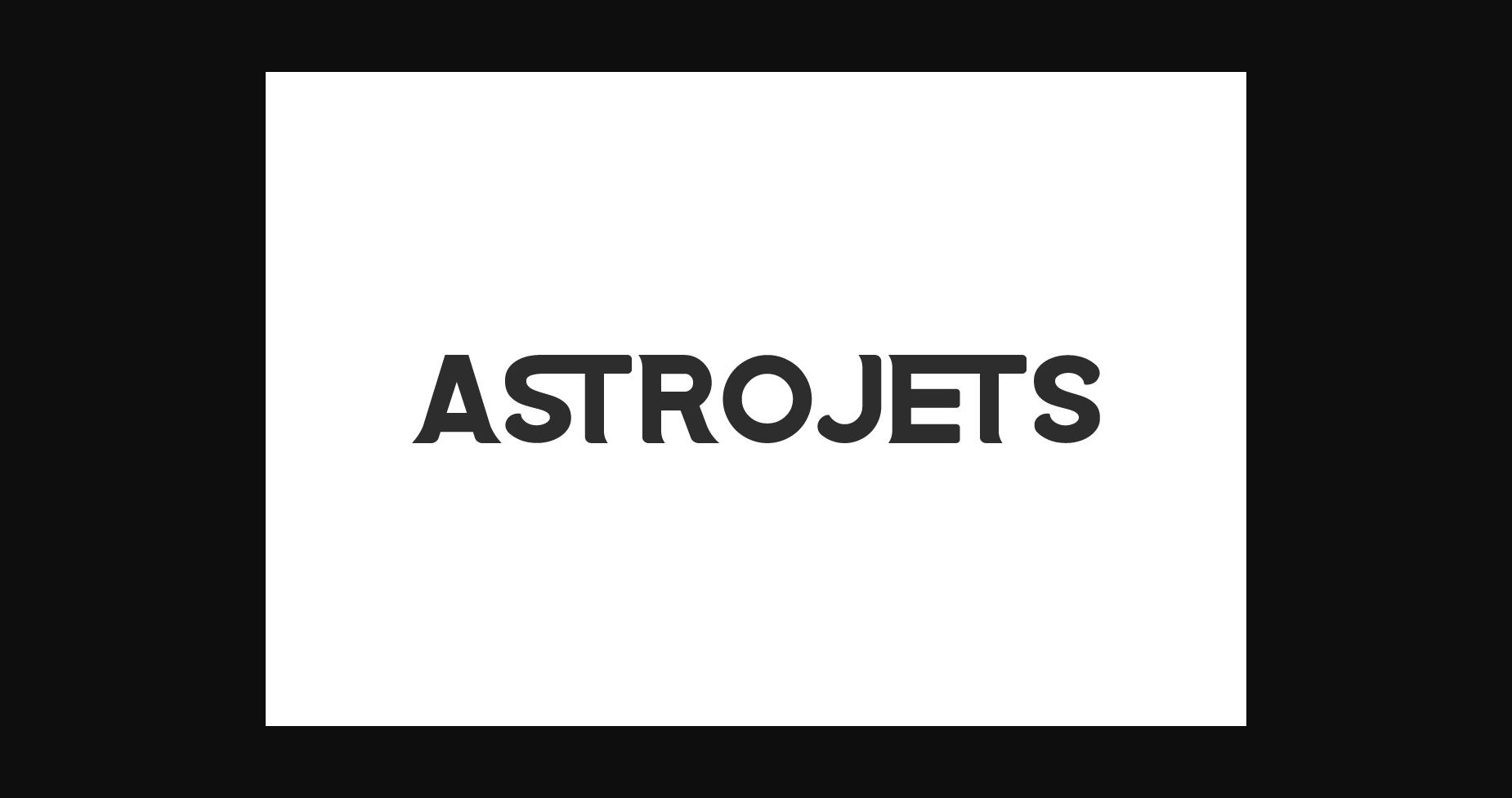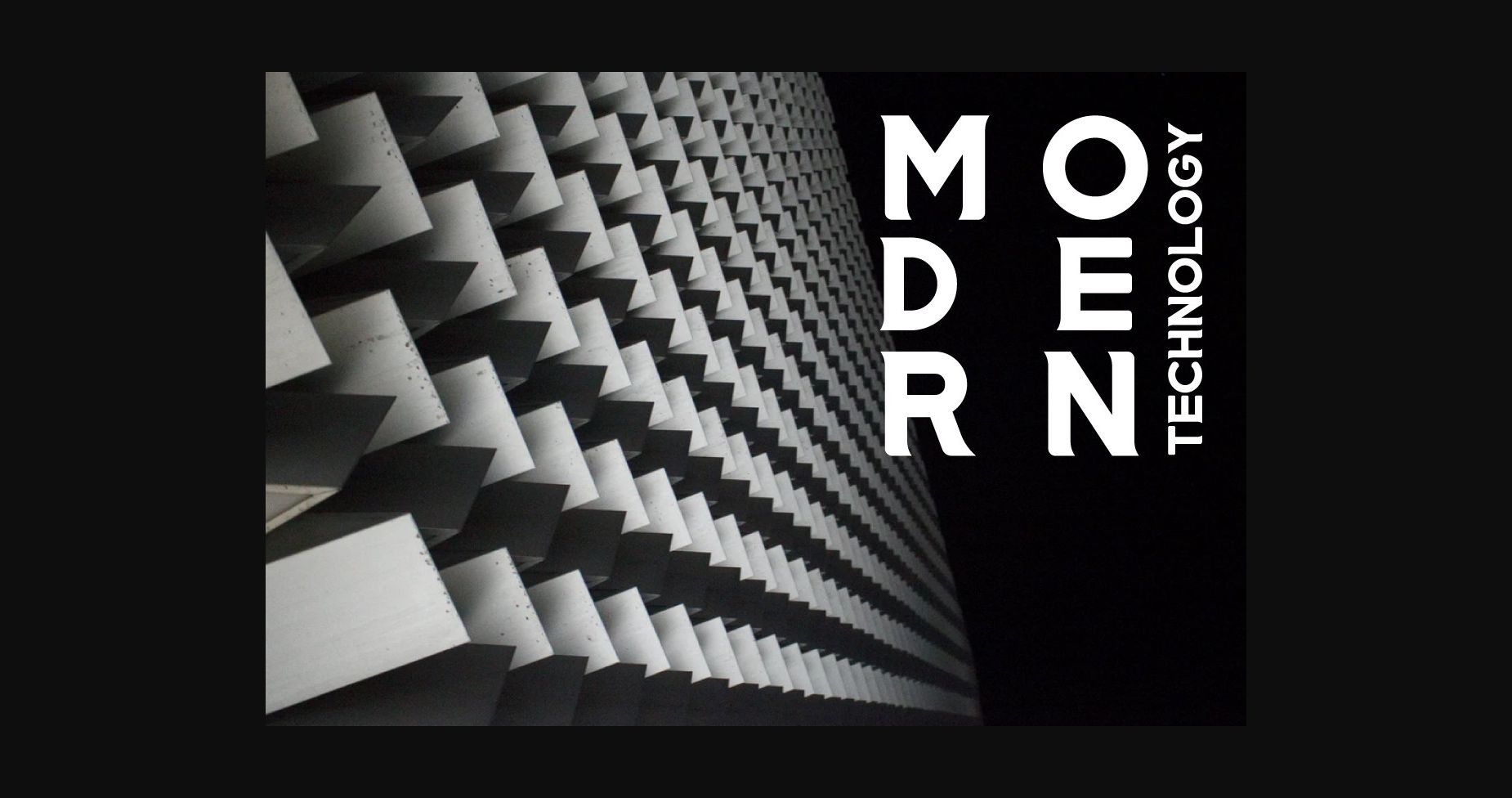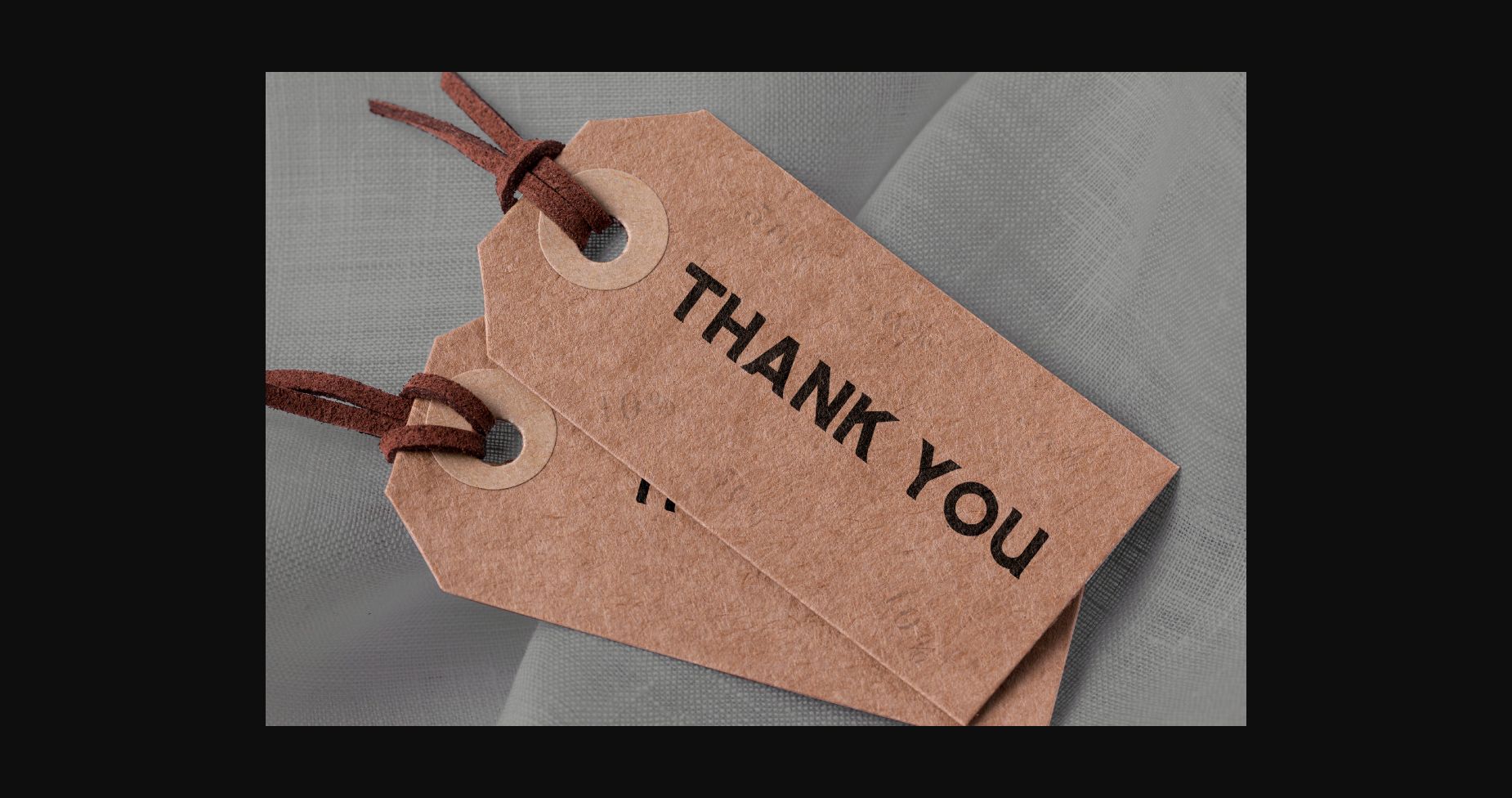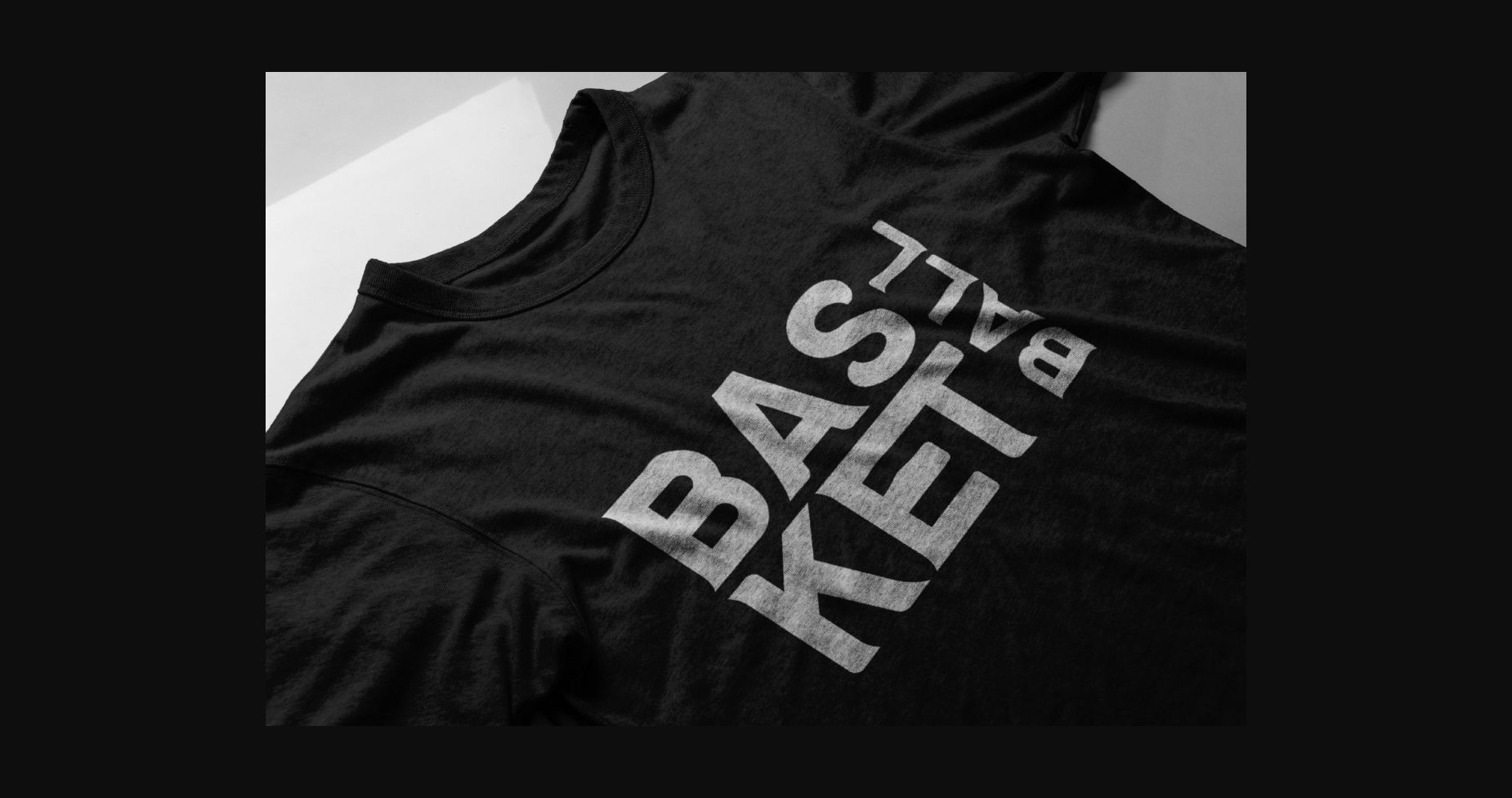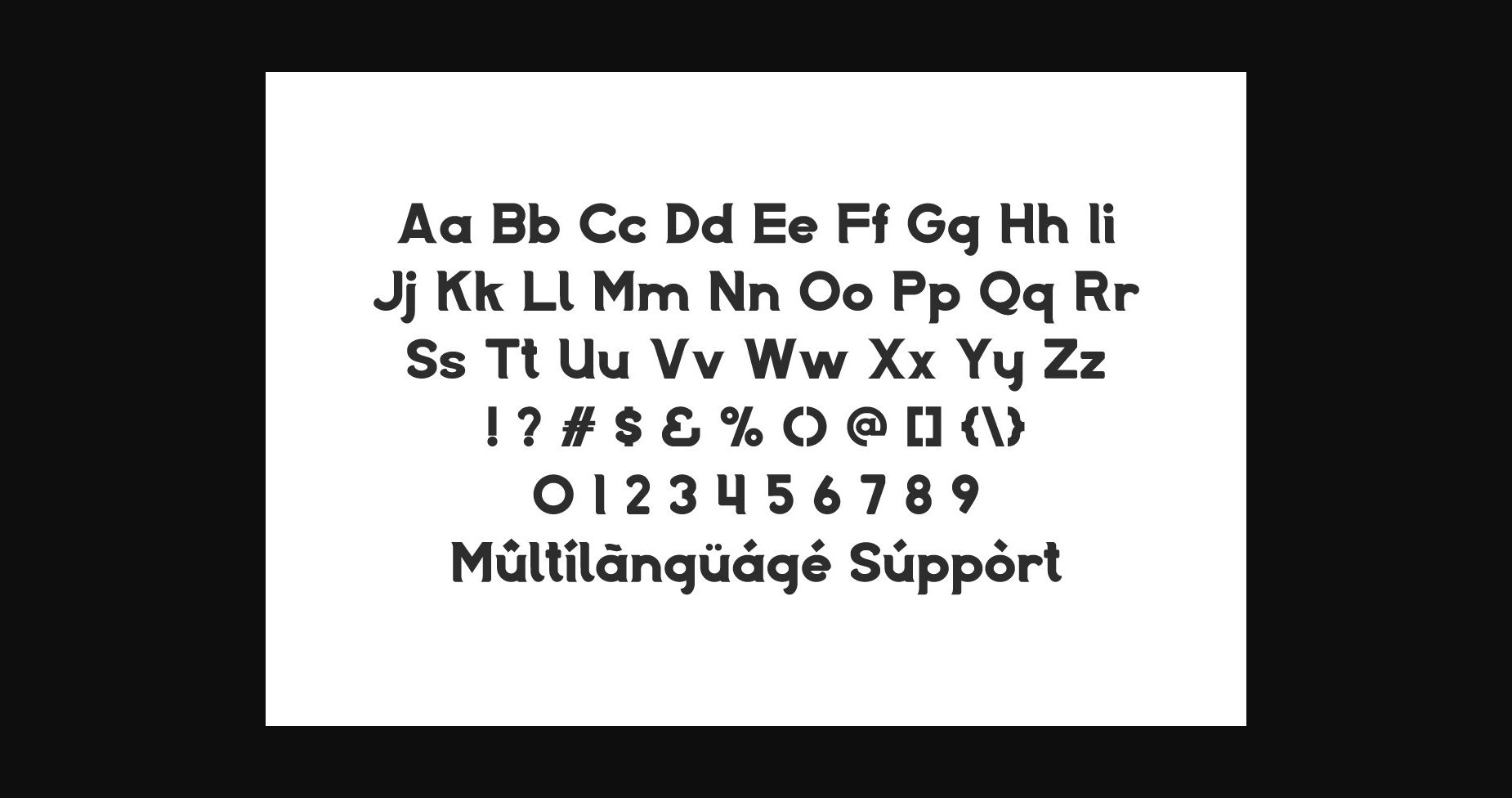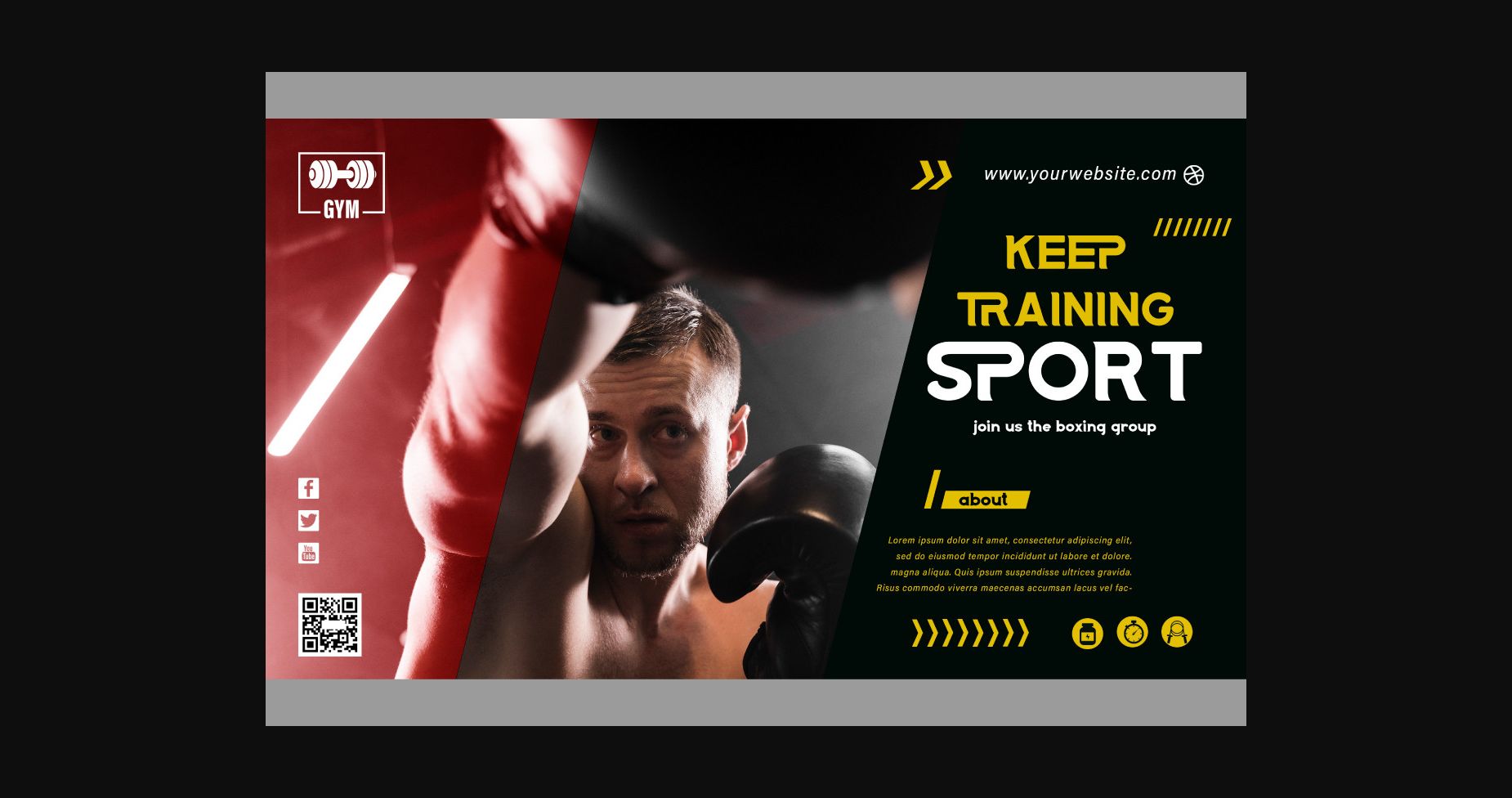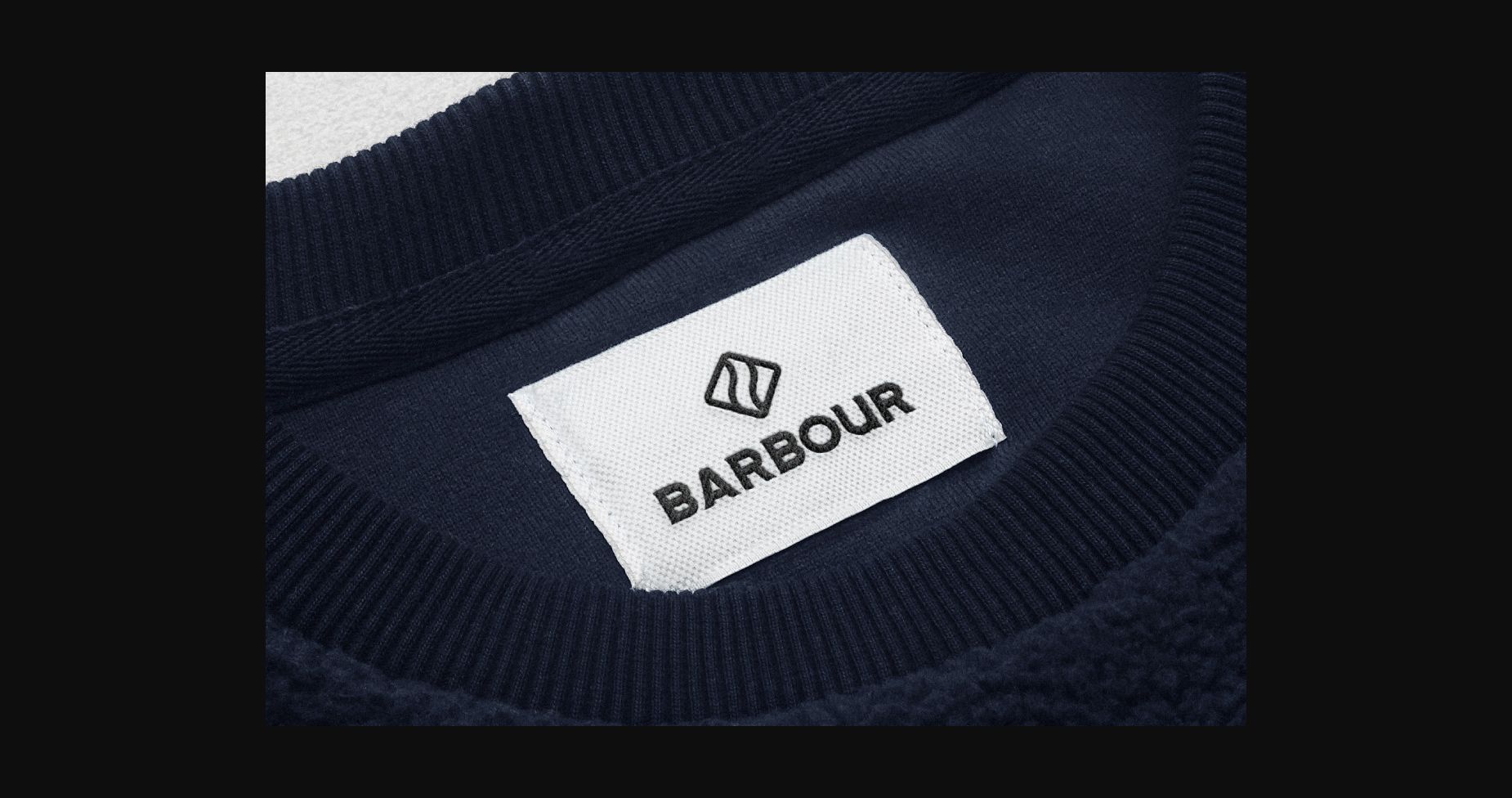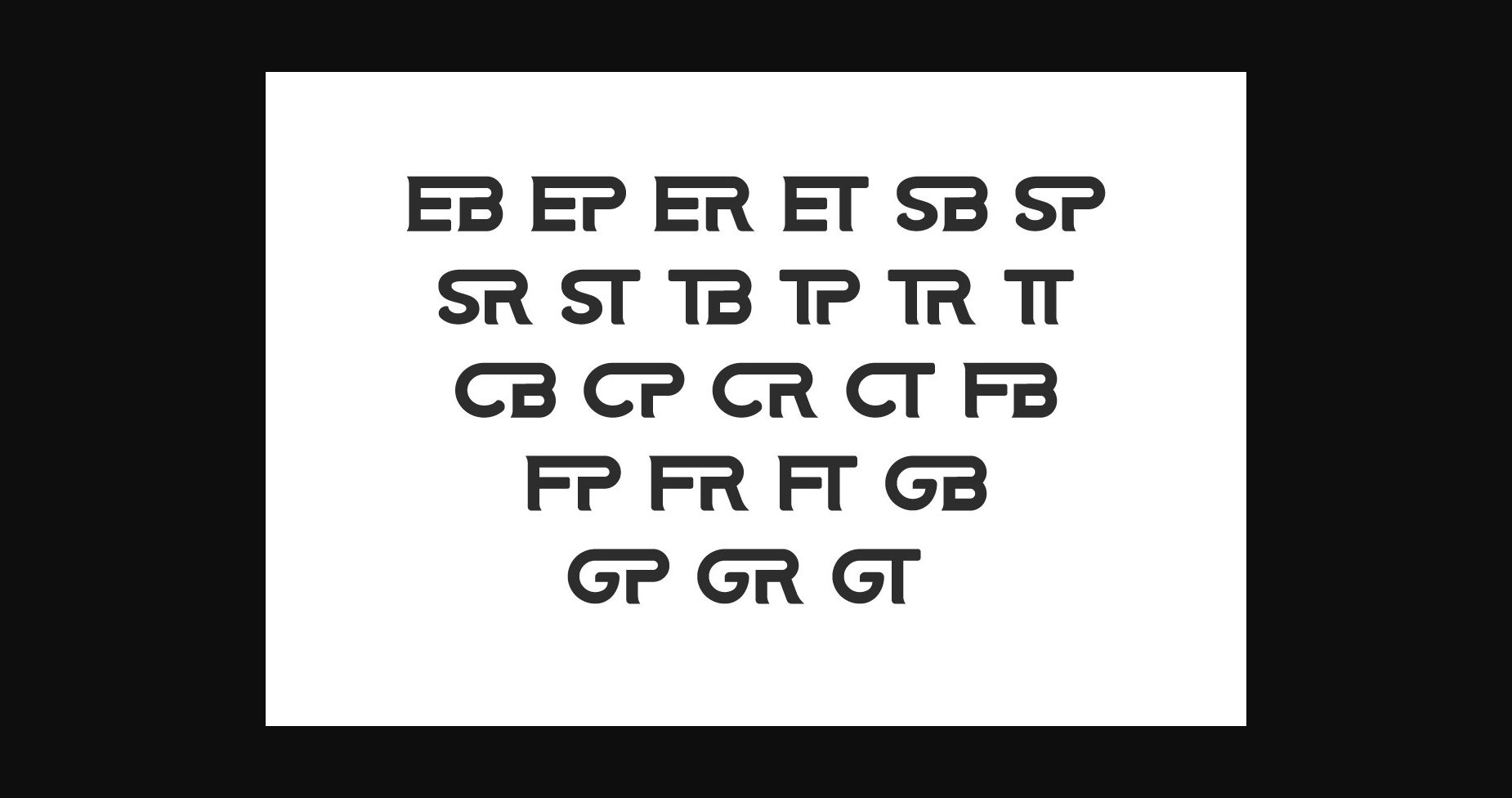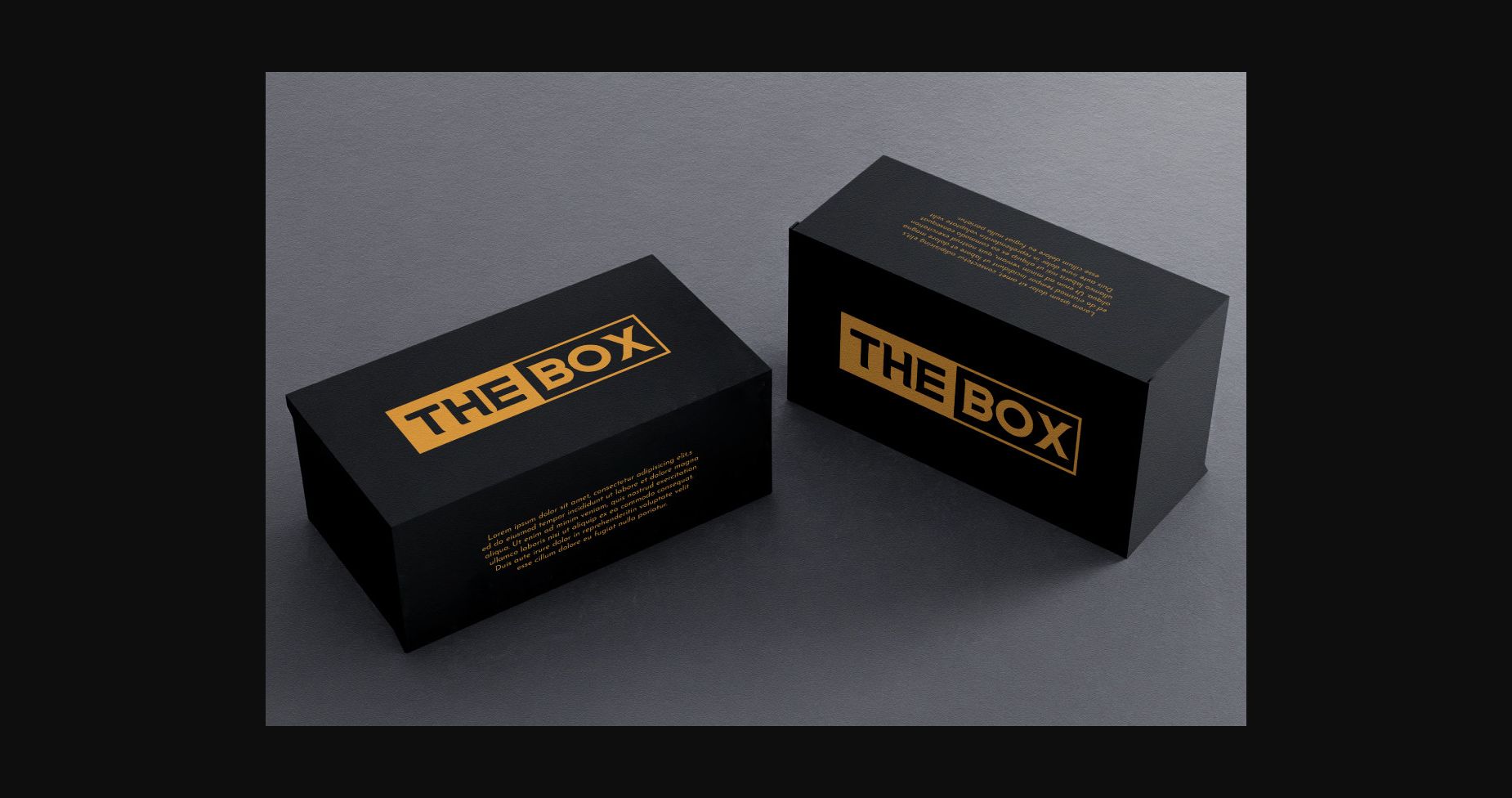
Astrojets Font
About Astrojets Font
Astrojets is a bold sans serif font perfect for branding, logos, stationery, business cards, signage, flyer, brochures, games, techno, startups, web development, automotive, crypto, and so much more! Masterfully designed to become a true favorite, this font has the potential to bring each of your creative ideas to the highest level!